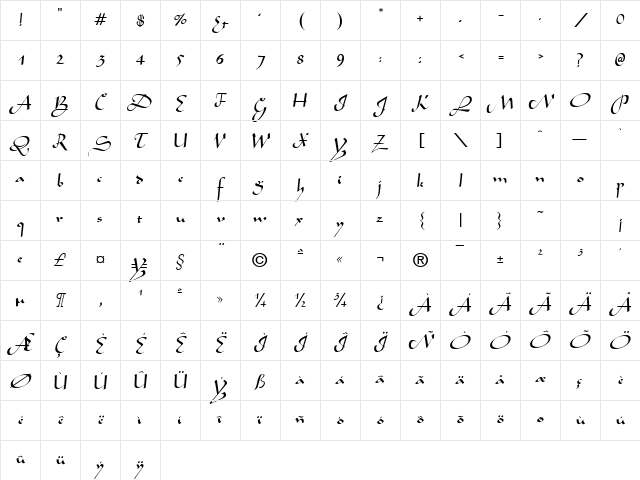
Complete Flourish Normal glyph index. Displaying only characters natively supported by Flourish Normal font.
Flourish is a composed and adaptable typeface that performs quietly and consistently across a wide range of design contexts.